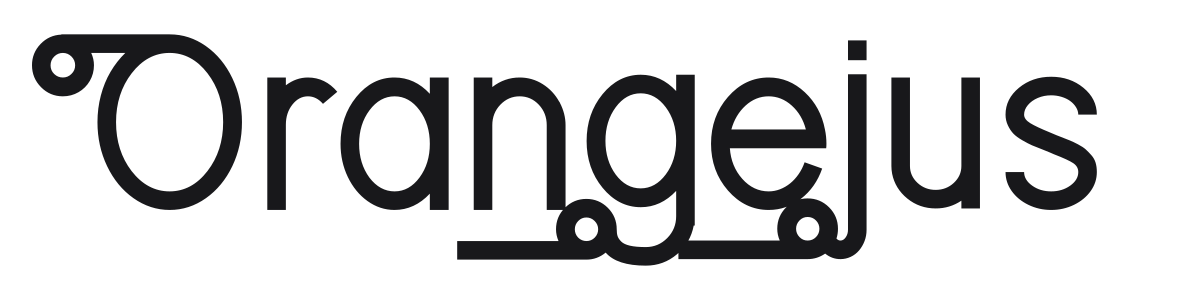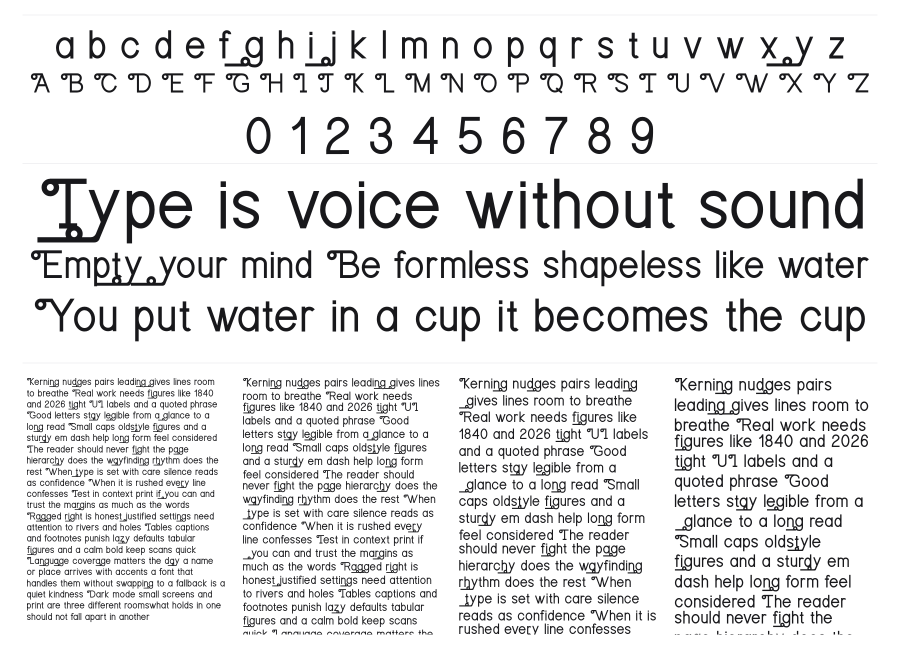
Orangejus
by Amru ID · Website
Orangejus is a geometric sans with soft terminals and a relaxed, airy feel. A looped detail tucked into one character breaks the grid just enough to give it personality without going full script. The wide, open proportions make it a natural choice for food packaging, lifestyle branding, and casual editorial headlines.